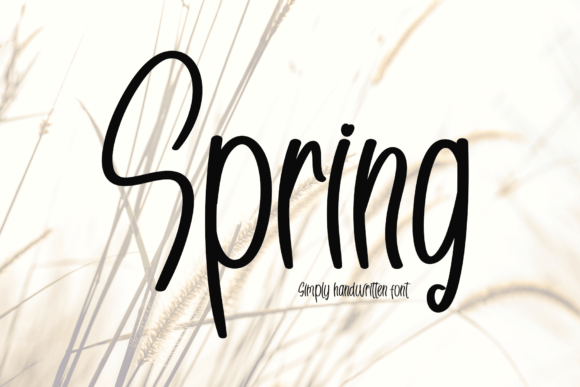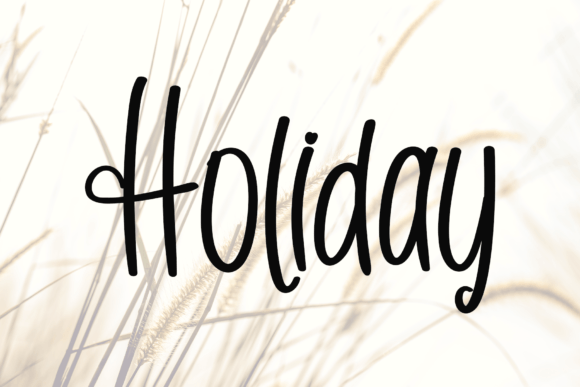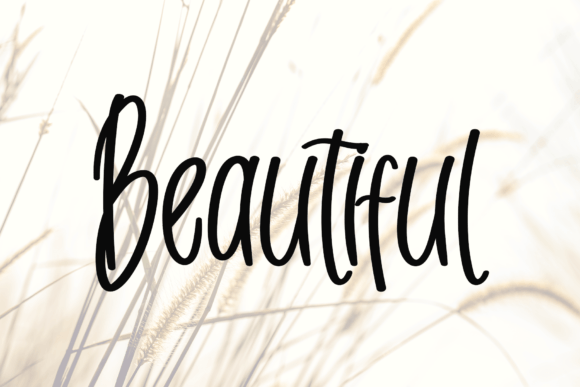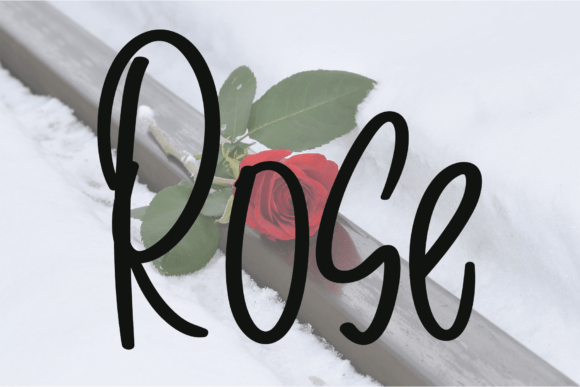
About Spring Font
“Spring” emerges as a neat and beautiful handwritten font, characterized by an elegant touch that adds a touch of sophistication to your favorite projects. Its distinct and timeless style makes it an ideal choice for a wide range of creative endeavors. Fall in love with the graceful charm of Spring and let it be the key to creating spectacular designs.
The neat and beautiful qualities of Spring make it a versatile font that suits various design applications. Whether you’re working on invitations, greeting cards, branding, or any other creative project, this font brings a refined and elegant aesthetic. Its handwritten nature adds a personal and human touch, making it well-suited for projects that require a sense of warmth and authenticity.
The elegance inherent in Spring’s design contributes to its timeless appeal. This font goes beyond trends, offering a classic and enduring style that stands the test of time. Its versatility allows it to adapt to different design themes and contexts, ensuring that it remains a reliable choice for a wide range of creative expressions.
By choosing Spring, you’re inviting a distinct and sophisticated aura into your designs. Its graceful strokes and refined details make it a font that resonates with those who appreciate beauty and craftsmanship. Whether used for headlines, quotes, or as a focal point in your designs, Spring has the ability to elevate the visual impact of your projects.
In summary, Spring is more than just a font; it’s a design asset that adds a touch of elegance to your creative toolbox. Its neat and beautiful handwritten style, coupled with a timeless charm, makes it a go-to choice for creating spectacular designs that leave a lasting impression. Embrace the unique qualities of Spring and let it be the elegant touch that transforms your favorite projects into works of visual excellence.